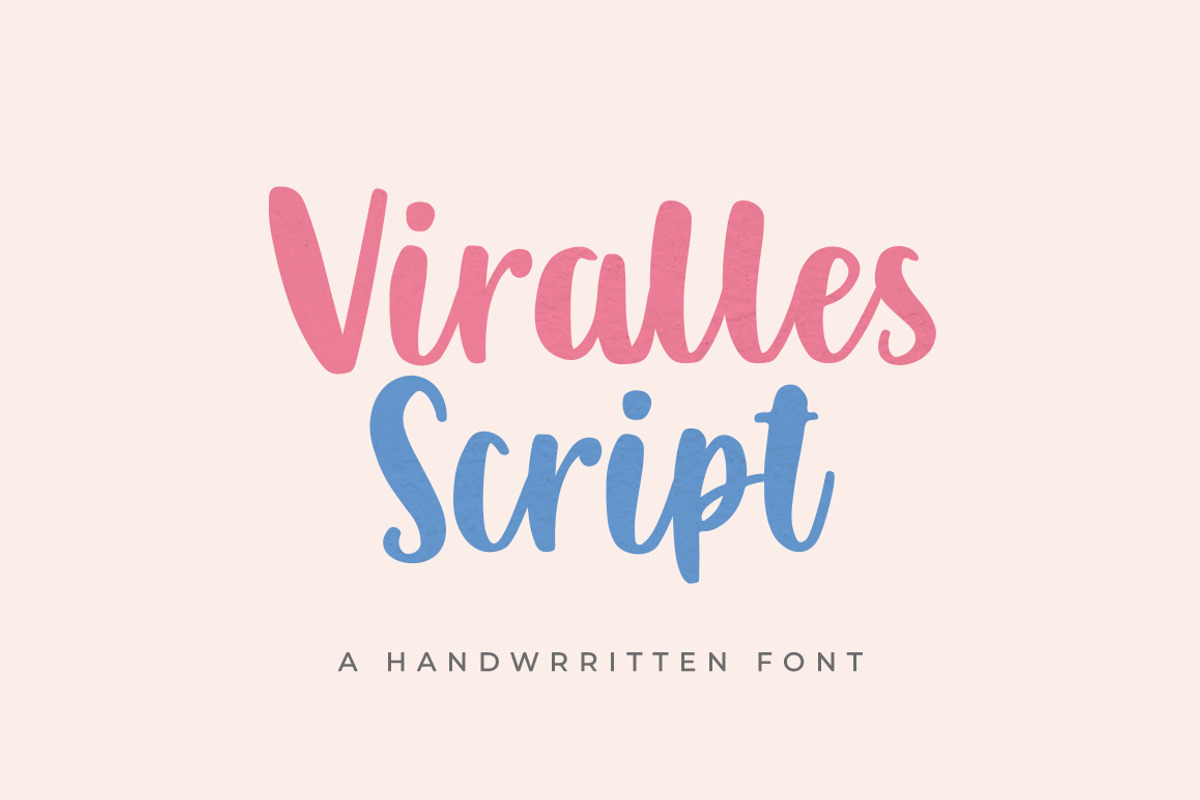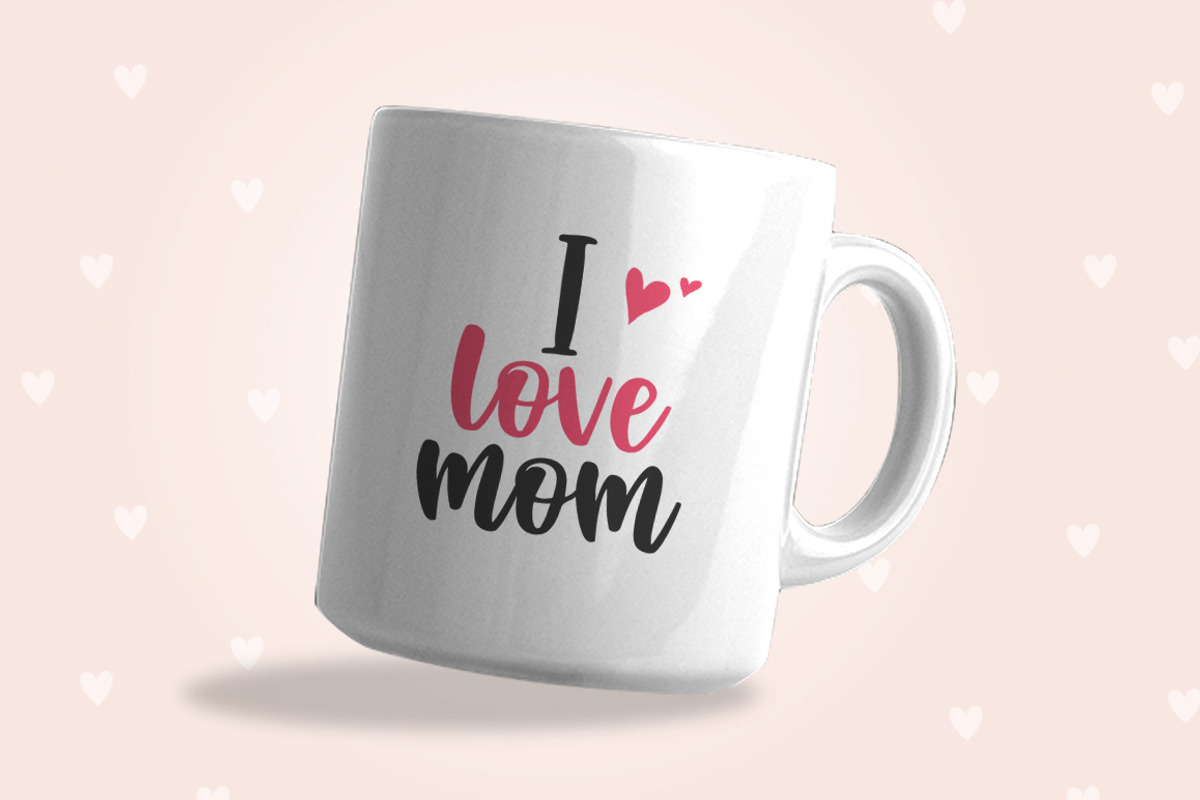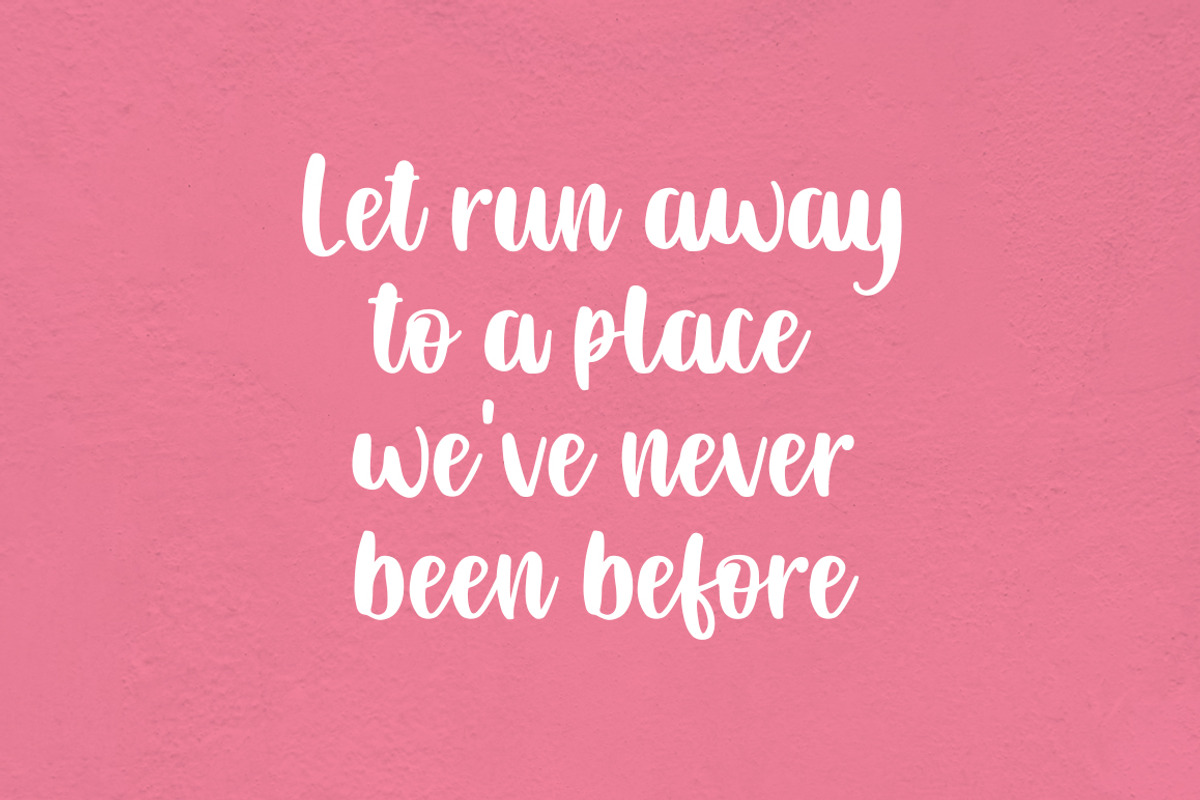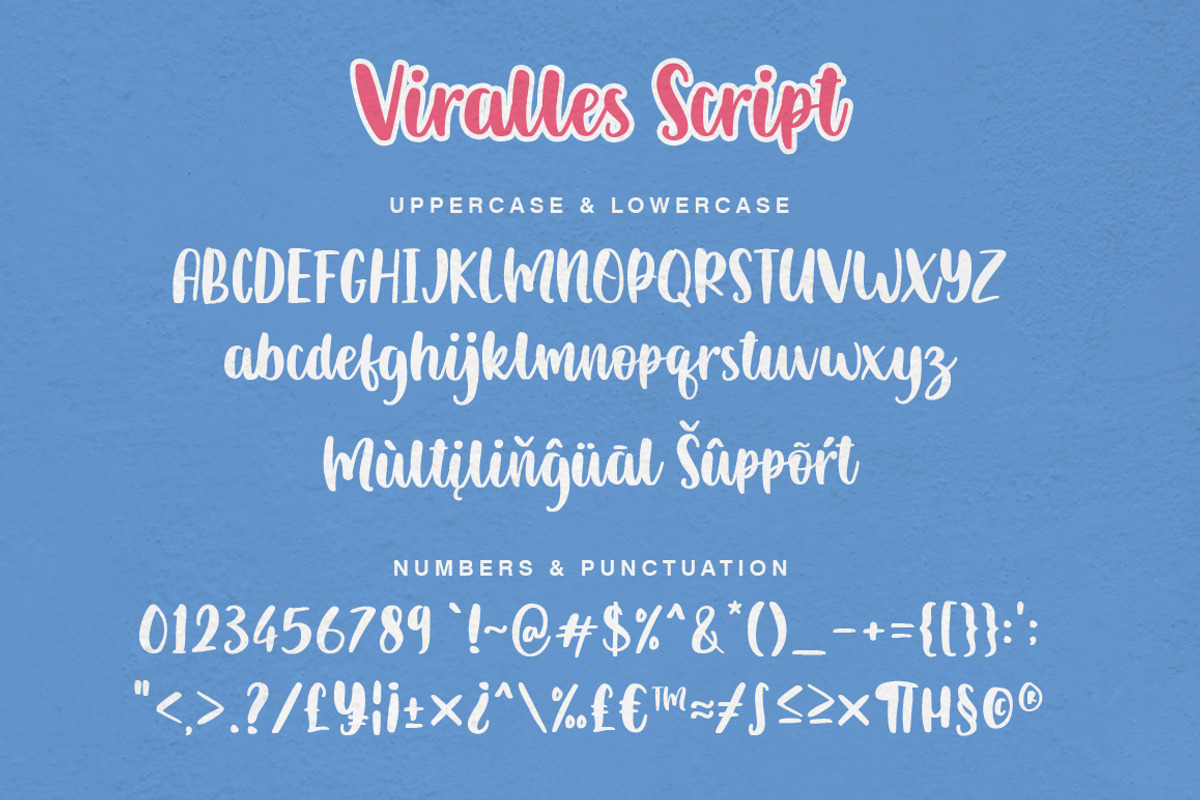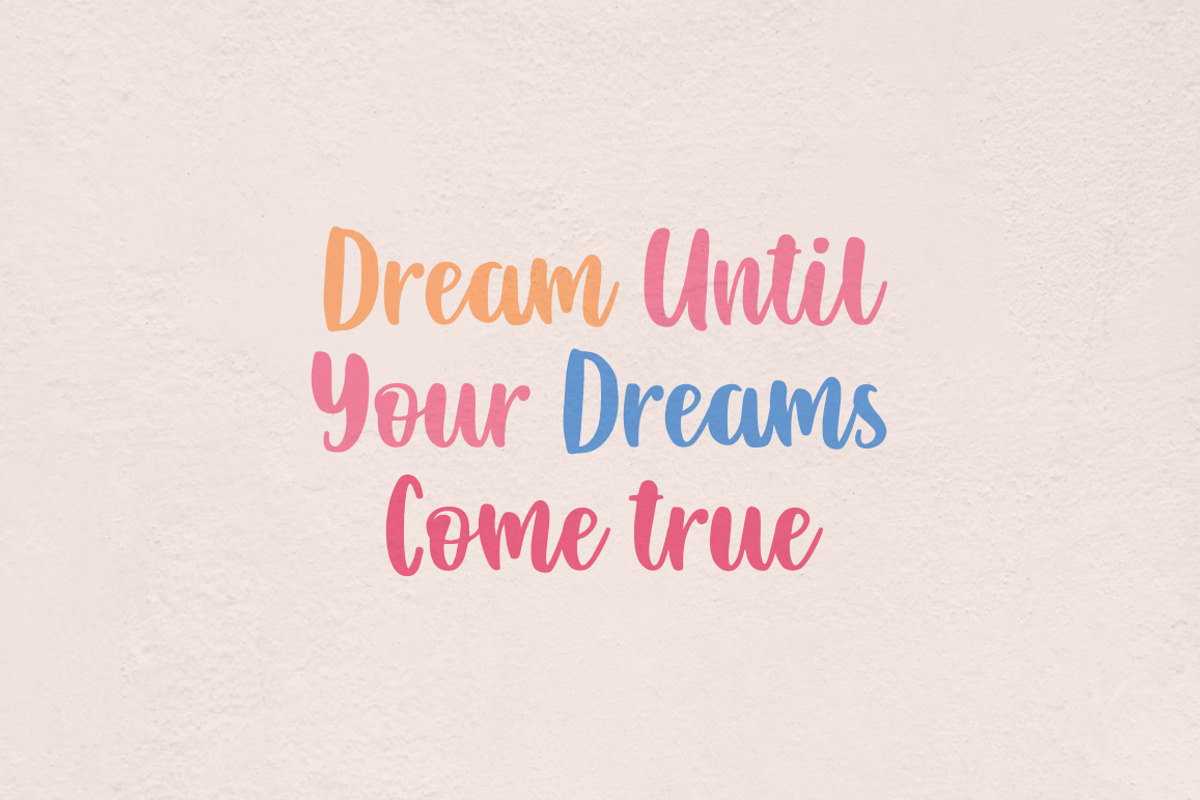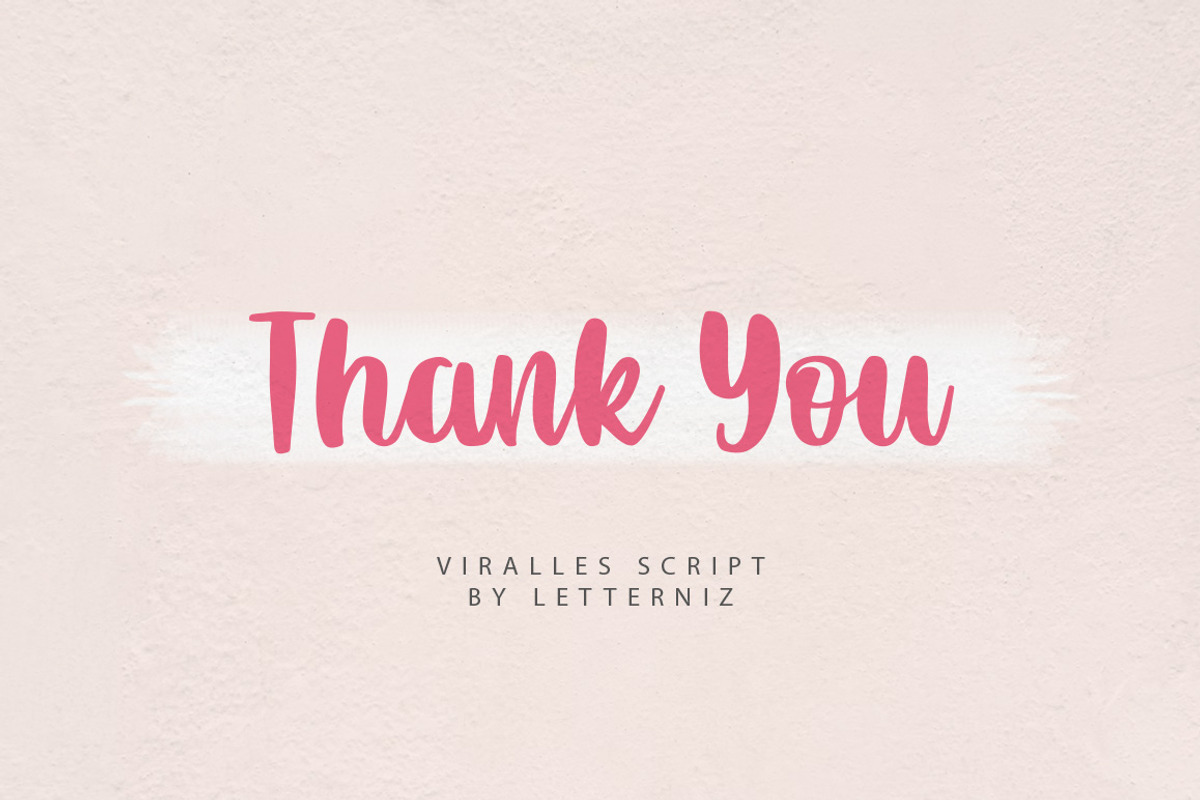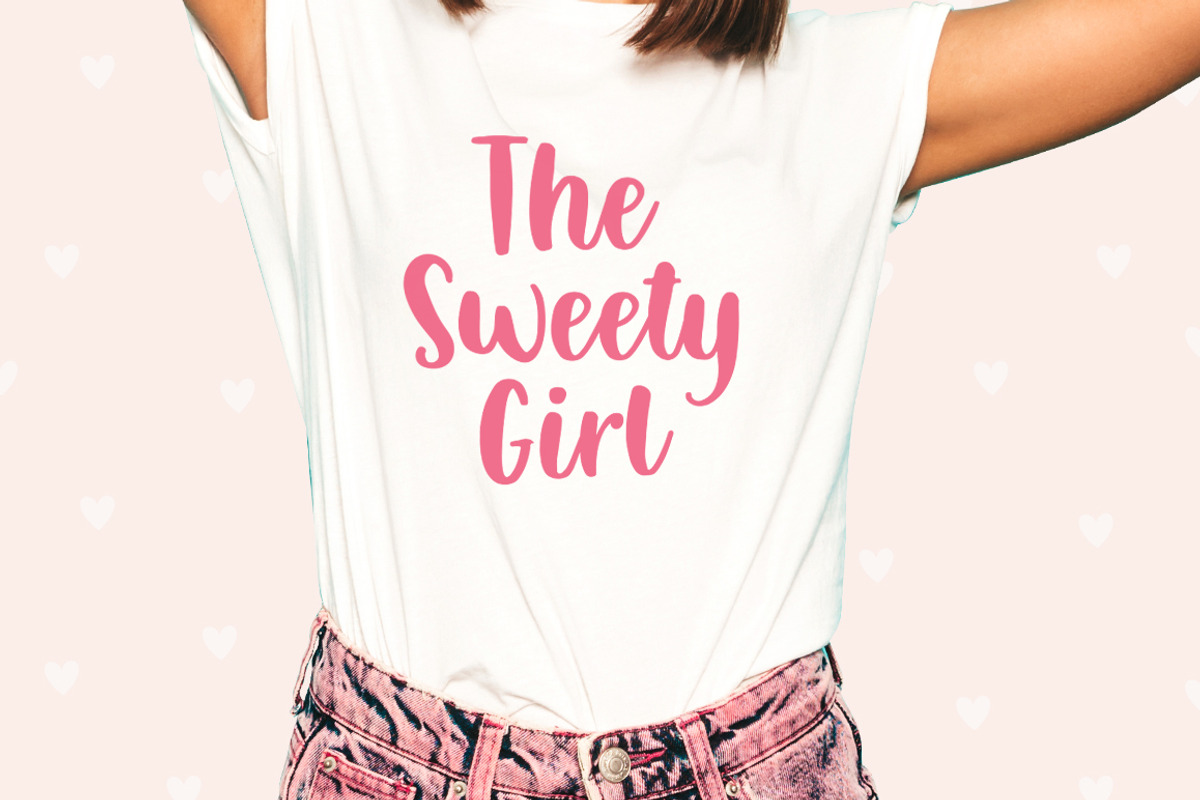
Viralles Script Font
Viralles is a handwritten script font. Looks stunning on wedding invitations, thank you cards, quotes, greeting cards, logos, business cards and any other design that requires a handwritten touch